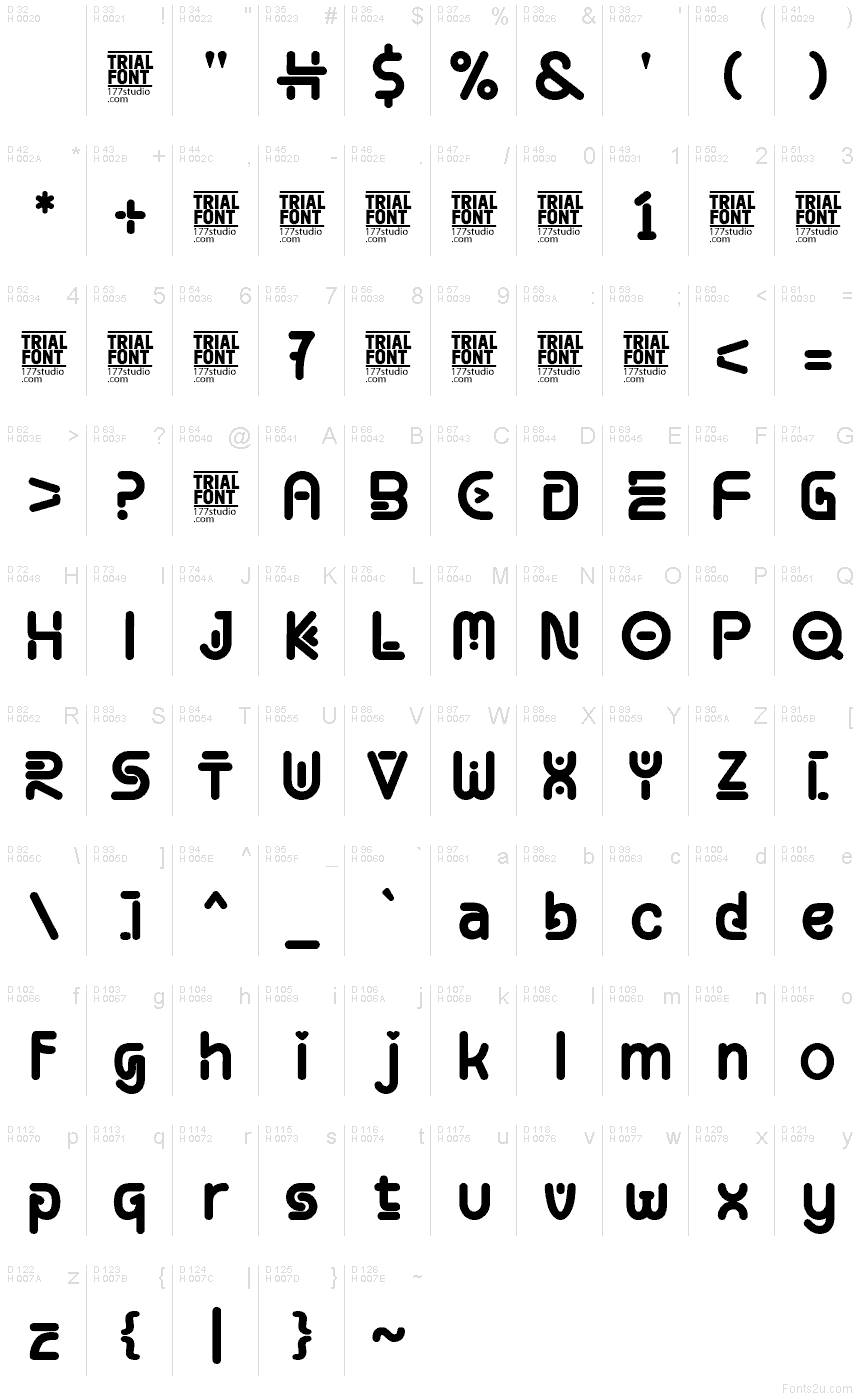
THRIVES RISENCE DEMO Bold
Thrives Risence Bold font by 177Studio is a free futuristic display typeface that looks carved from smooth, metallic tubing. Chunky strokes break into precise gaps, creating a stencil-like rhythm that feels both engineered and fluid, as if the letters are part of a sleek sci-fi interface. The tight spacing and rounded edges give every word a compact, high-energy silhouette that grabs attention instantly.
Using Thrives Risence Bold, titles feel like they belong on game covers, esports branding, sci-fi posters, tech event graphics, music promos, and bold packaging. This free font thrives at large sizes where its segmented curves and clean cuts can really breathe. Pair it with a simple geometric sans for body text, and let Thrives Risence carry the main logo, header, or hero line.